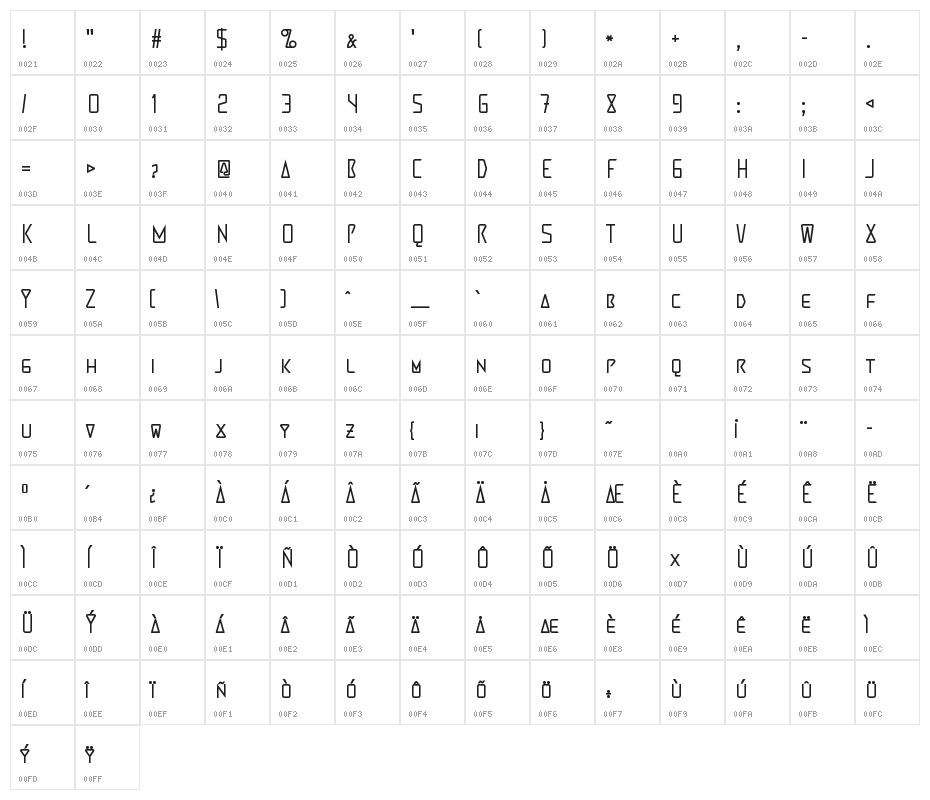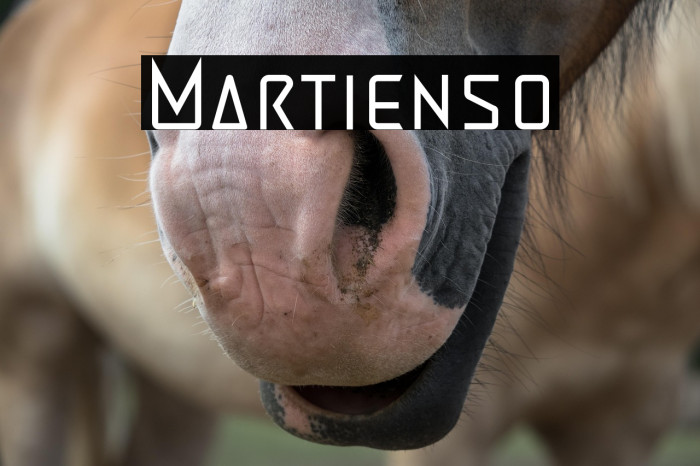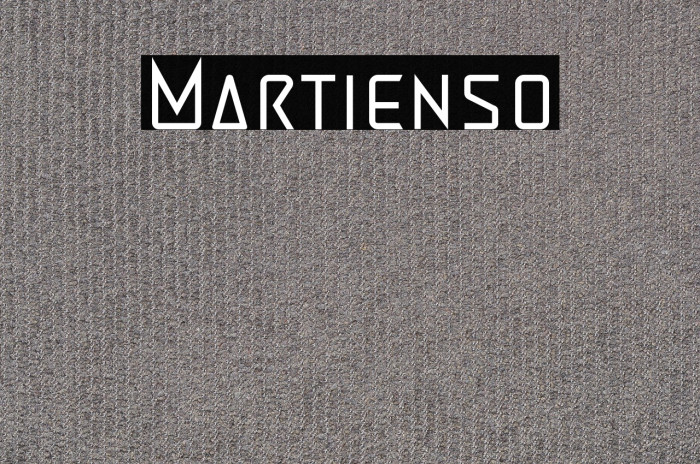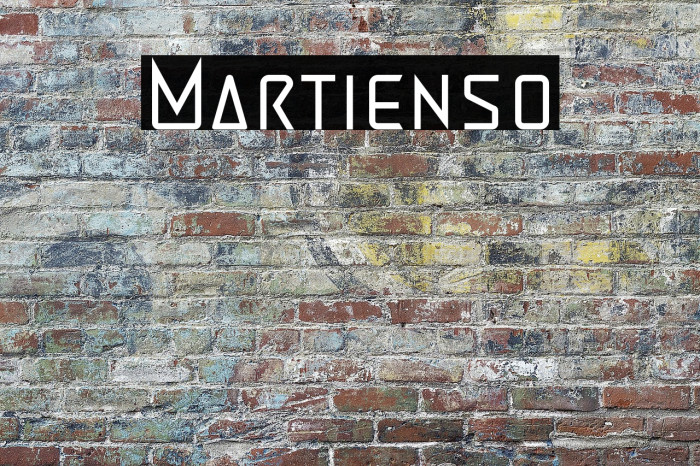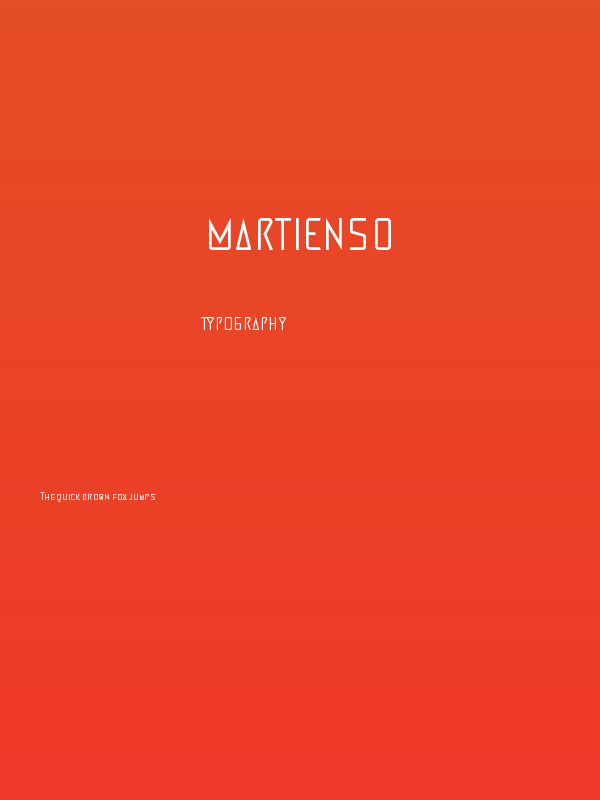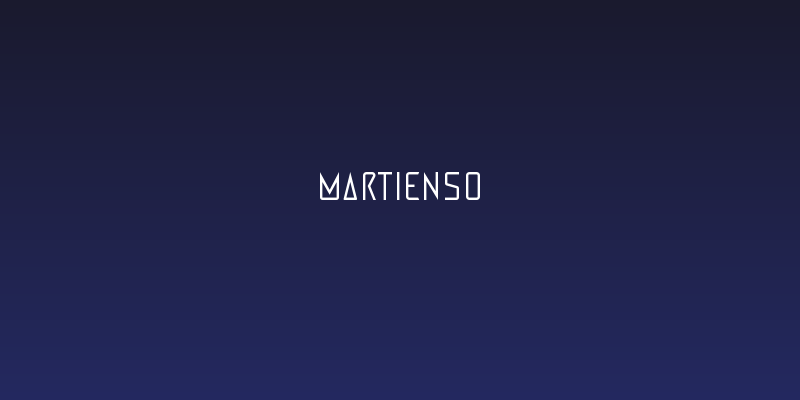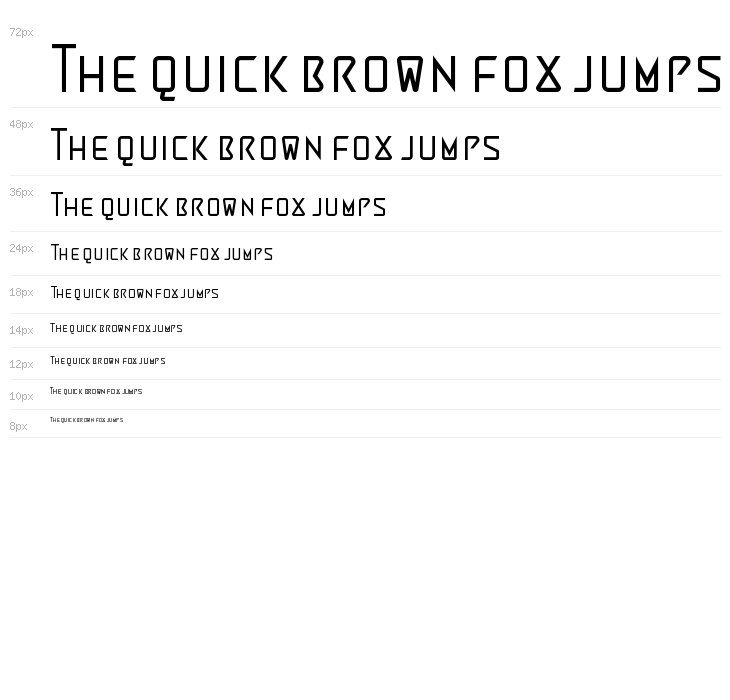
Martienso Font
Martienso Description
This font features a geometric and futuristic design, characterized by sharp angles and a consistent line weight throughout. The uppercase letters have a distinct angularity, with some characters incorporating unique shapes that deviate from traditional forms, such as the 'A' and 'M'. The lowercase letters maintain a similar style, ensuring uniformity across the typeface. Numbers are crafted with the same geometric precision, making them highly legible. Special characters are included, matching the overall aesthetic with clean lines and angular forms. This font is ideal for projects that require a modern and edgy look, offering a unique twist on standard geometric fonts.